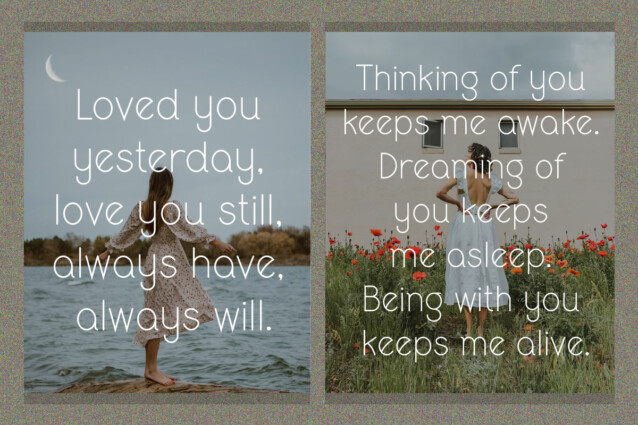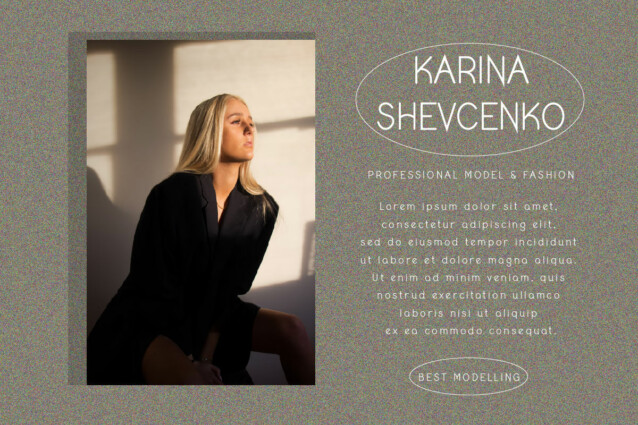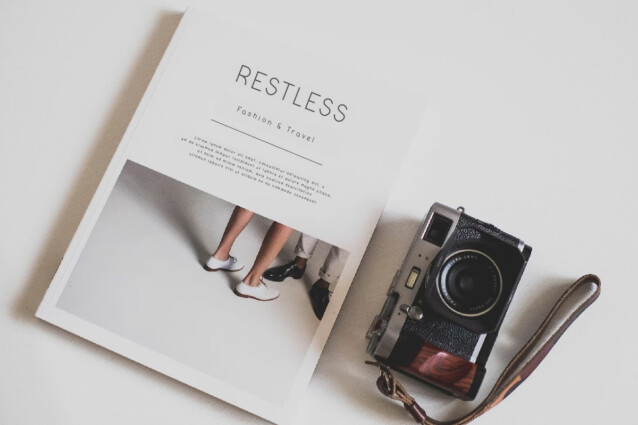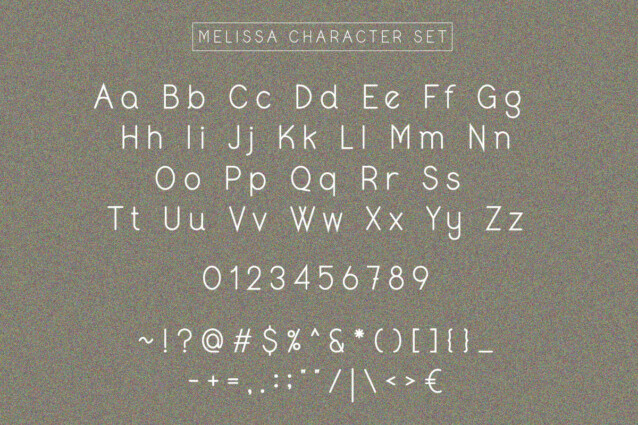
Melissa Font is a luxurious and elegant serif font with smooth and curved lines. The flowing shape and wide letter spacing create an open feel, making it perfect for titles, logos, posters, events, magazines, design cards, weddings, fashion products and invitations. This font exudes a sophisticated yet approachable feel, ideal for any project that needs a touch of refinement.